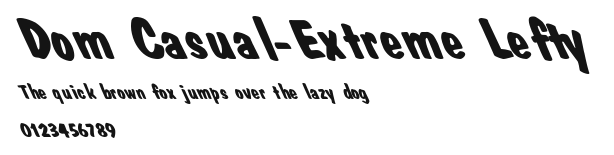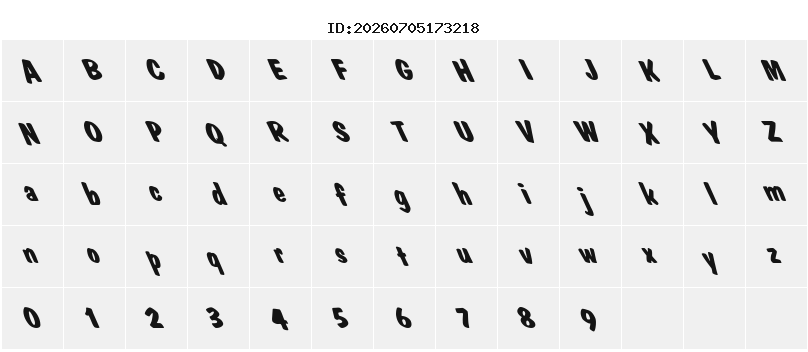
Dom Casual-Extreme Lefty Preview
• Font Name: Dom Casual-Extreme Lefty
• Full Font Name: Dom Casual Extreme Lefty
• PostScript Name: DomCasualExtremeLefty
About Dom Casual-Extreme Lefty.ttf
Dom Casual-Extreme Lefty.ttf is a modern, elegant sans-serif font designed for ultimate readability and visual harmony. Perfect for branding, headlines, web design, and print materials.